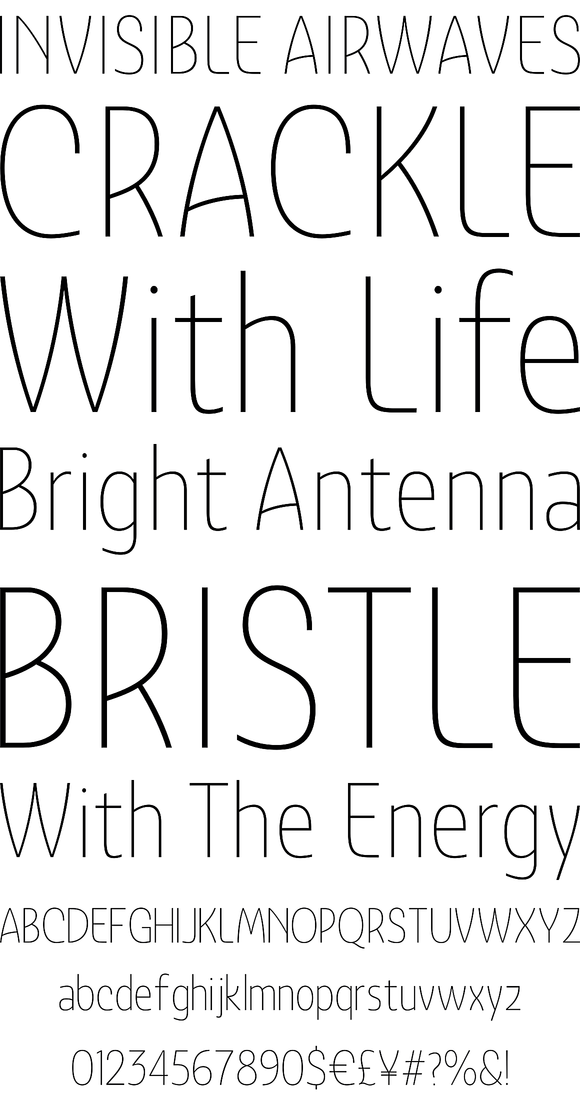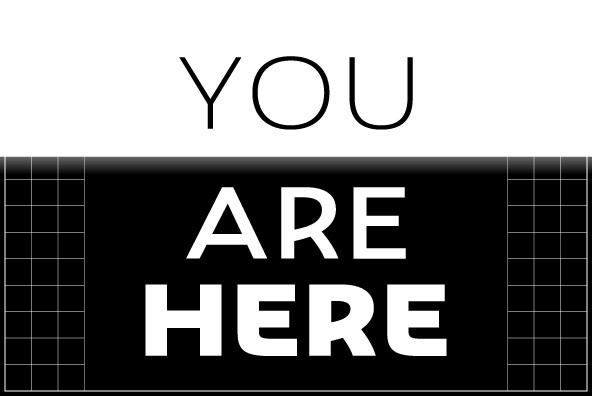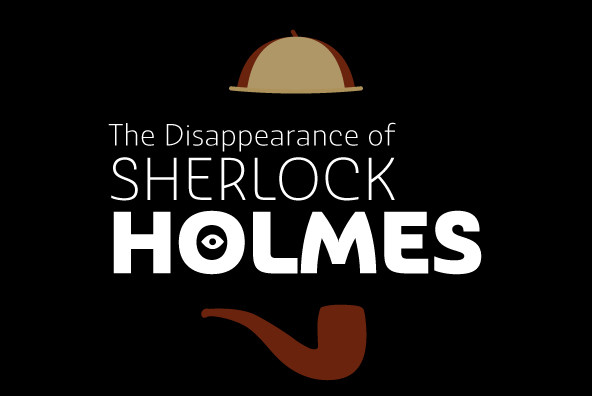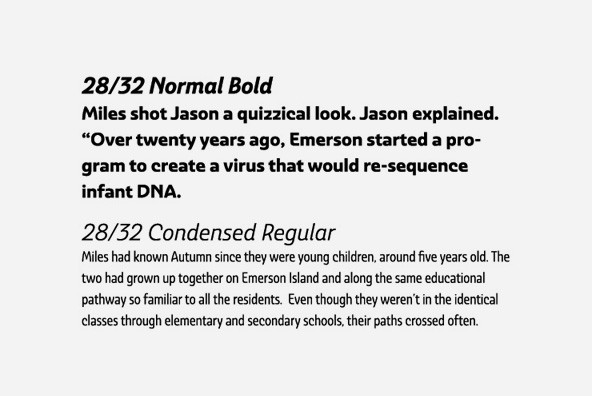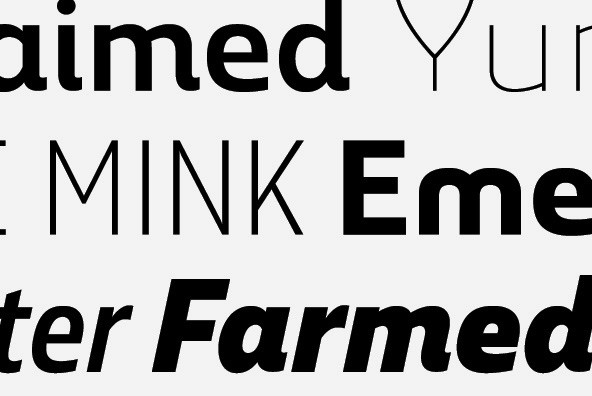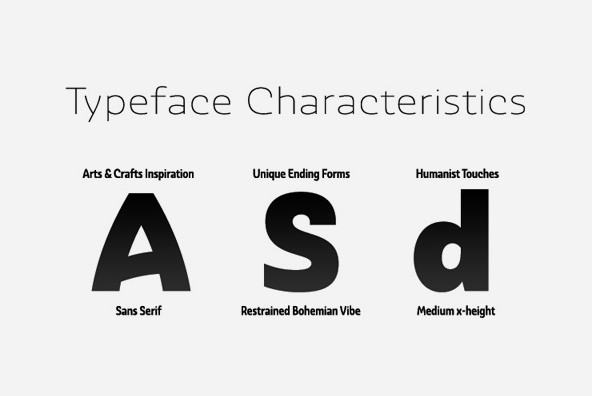
Ashemore
Foundry: Insigne
Ashemore developed as a result of my visits to Barcelona, Spain and to Germany, followed soon after by a visit to Asheville, North Carolina. Blending the styles of art and architecture from these three areas may seem initially to result in an unusual formula, but the distinct and flamboyant style of Art Nouveau and the Arts and Crafts style combined with the more strict rules of a sans serif transfer well into a beautiful and very usable blend of these individually eccentric forms. The resulting font retains the Art Nouveau and Craftsman style flavors, which shine through the typeface despite its geometric base.
One of the font’s defining characteristics is the unique terminators of its C, G and S. This face’s texture and rhythm also move well in longer texts. These and other features give Ashemore a restrained bohemian vibe that seems particularly appropriate for a coffee house or an art gallery.
The Ashemore family has a full range of six weights from thin to black and includes condensed and extended options for a total of 36 fonts. The typeface also includes some unique OpenType alternates that make the superfamily even more versatile. Ashemore is equipped for complex professional typography, including alternates, small caps and many alternate characters. The face also has a number of numeral sets, including tabular figures, fractions, old-style, lining figures and superiors and inferiors. OpenType-capable applications such as Quark or the Adobe Suite can take full advantage of automatic ligatures and alternates. You can find these features demonstrated in the .pdf brochure.
Ashemore also includes the glyphs to support a wide range of languages, including Central, Eastern and Western European languages. In all, Ashemore supports over 40 languages that use the extended Latin script, making the new addition a great choice for multi-lingual publications and packaging.